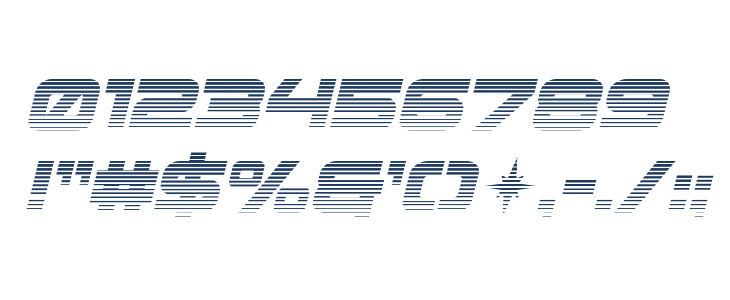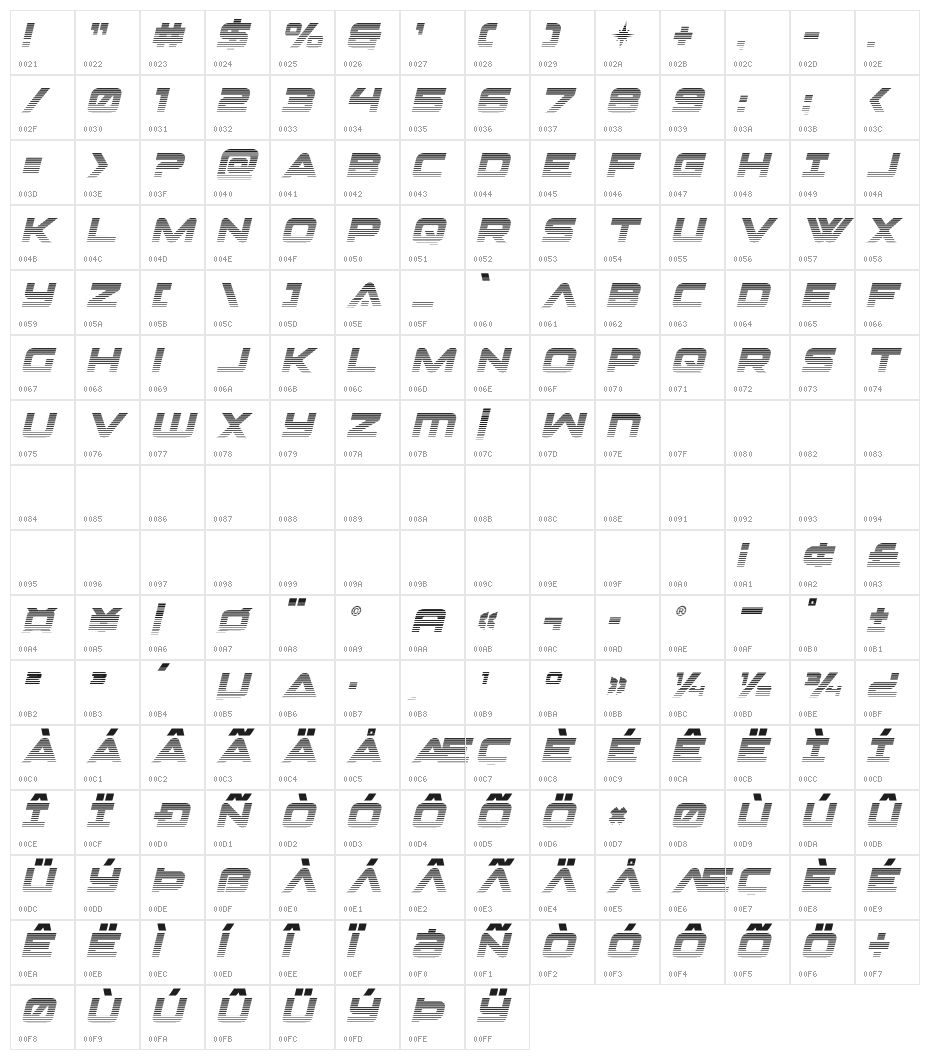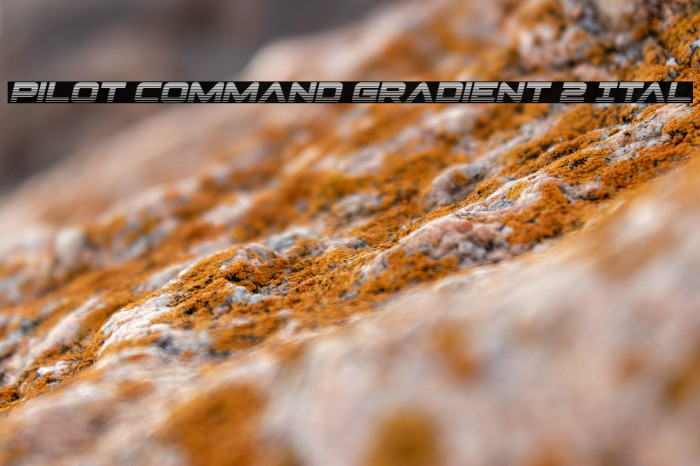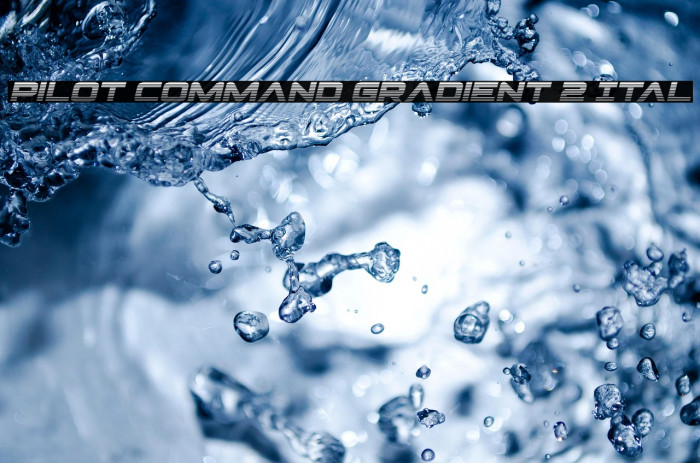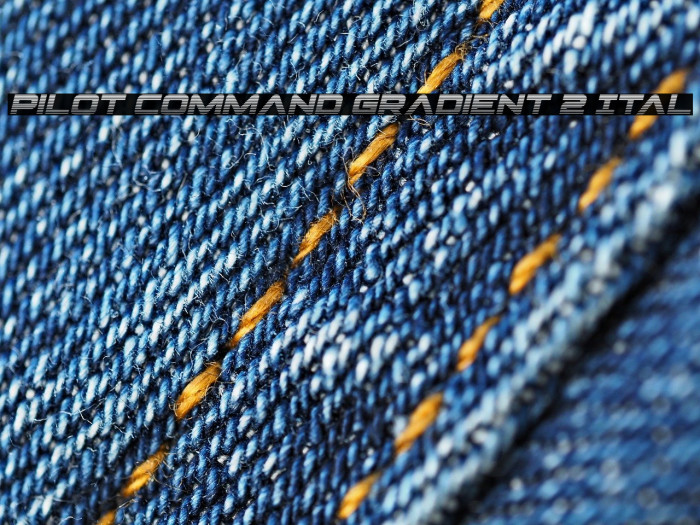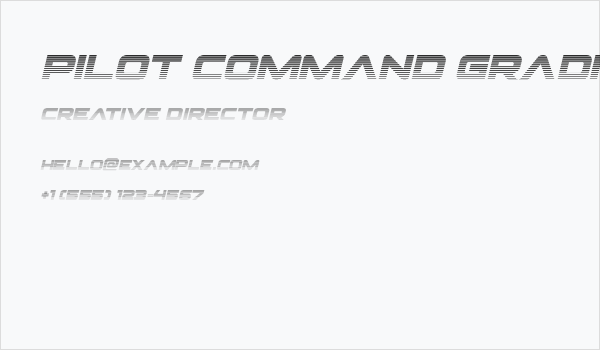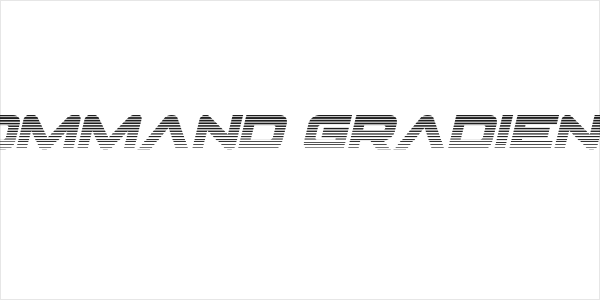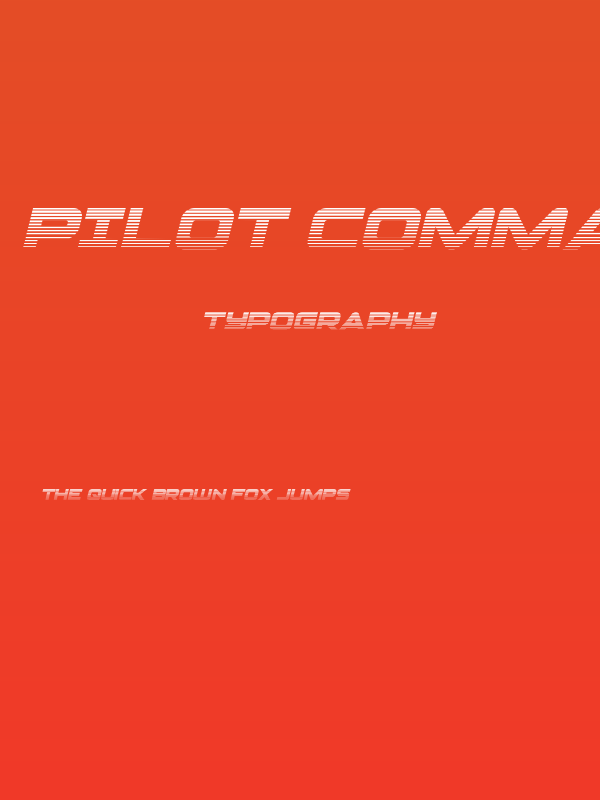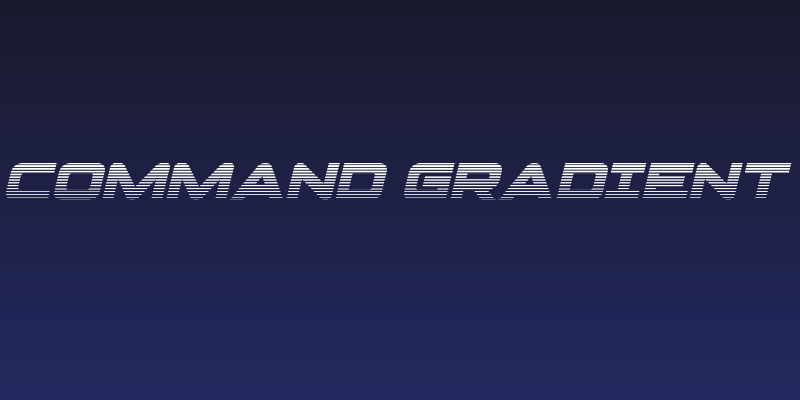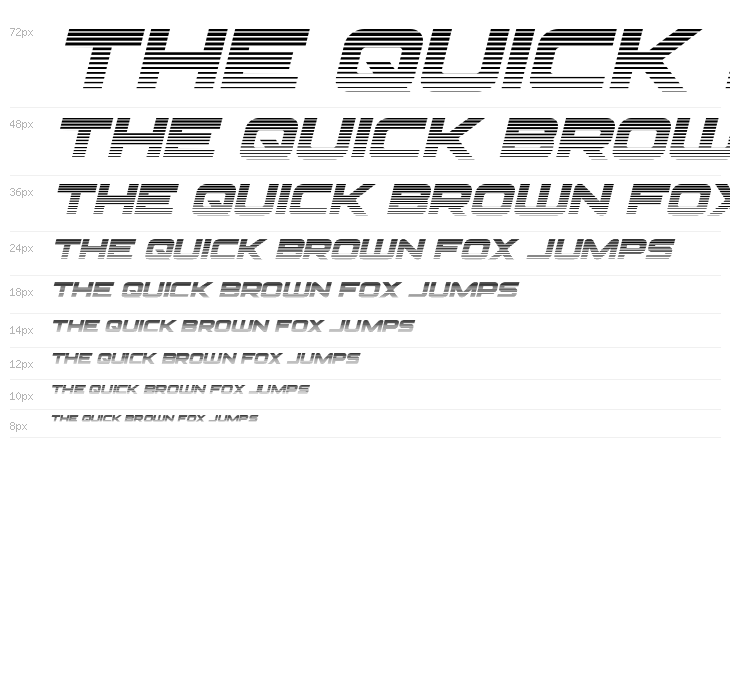
Pilot Command Gradient 2 Ital Font
Pilot Command Gradient 2 Ital Description
This font features a futuristic and dynamic design with a distinct slanted orientation, giving it a sense of motion and speed. The characters are composed of multiple horizontal lines that create a gradient effect, enhancing its modern and technological appearance. The uppercase and lowercase letters maintain a consistent style, with sharp angles and clean edges. The numerals and special characters follow the same design principles, ensuring uniformity across all glyphs. This font is ideal for projects that require a bold, innovative look.
| Proposed Projects | Ideal for technology branding, sci-fi movie posters, video game titles, and futuristic event invitations. |